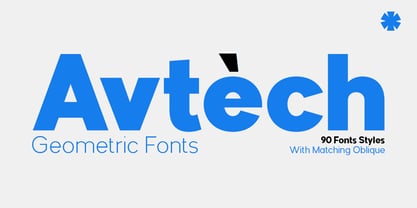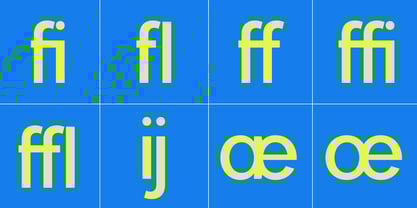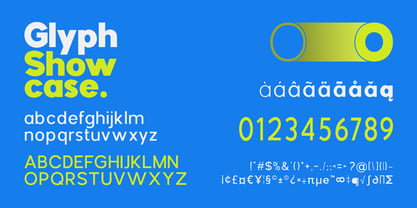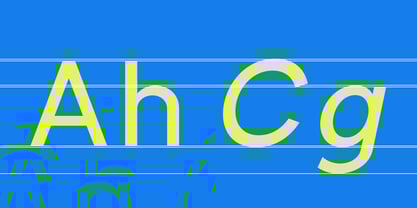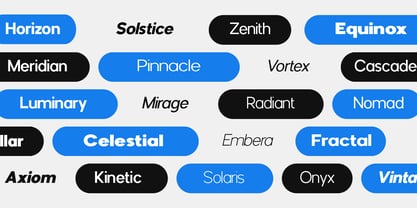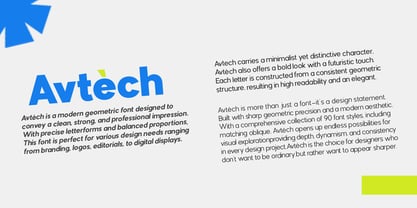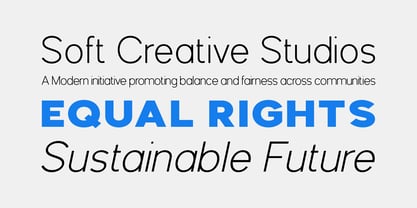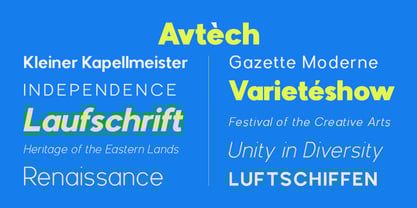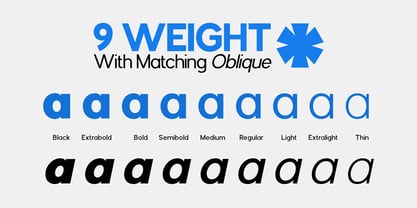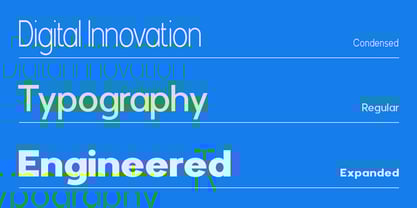
Avtech
by Soft Creative
The Avtech Font Family was designed by Muhajir Akarim and published by Soft Creative. Avtech contains 90 styles and family package options. More about this family
Avtèch – The Future of Geometric Typography Step into the future of design with Avtèch — a powerful geometric typeface crafted to make bold statements and leave lasting impressions. Built with precision and modern aesthetics, Avtèch blends clean structure with striking personality, making it the perfect choice for designers who demand both style and performance. With its strong geometric foundation and contemporary feel, Avtèch delivers a confident, cutting-edge look that instantly elevates any project. Whether you're designing a tech brand, sleek editorial layout, or eye-catching digital content, this typeface ensures your work stands out effortlessly. What truly sets Avtèch apart is its versatility. Featuring an impressive 90 font styles, complete with perfectly matched obliques, it gives you the freedom to explore endless creative possibilities—from ultra-light elegance to bold, impactful headlines. Avtèch isn’t just a font—it’s a design tool that empowers you to create with confidence, clarity, and style.
Designers: Muhajir Akarim
Foundry: Soft Creative